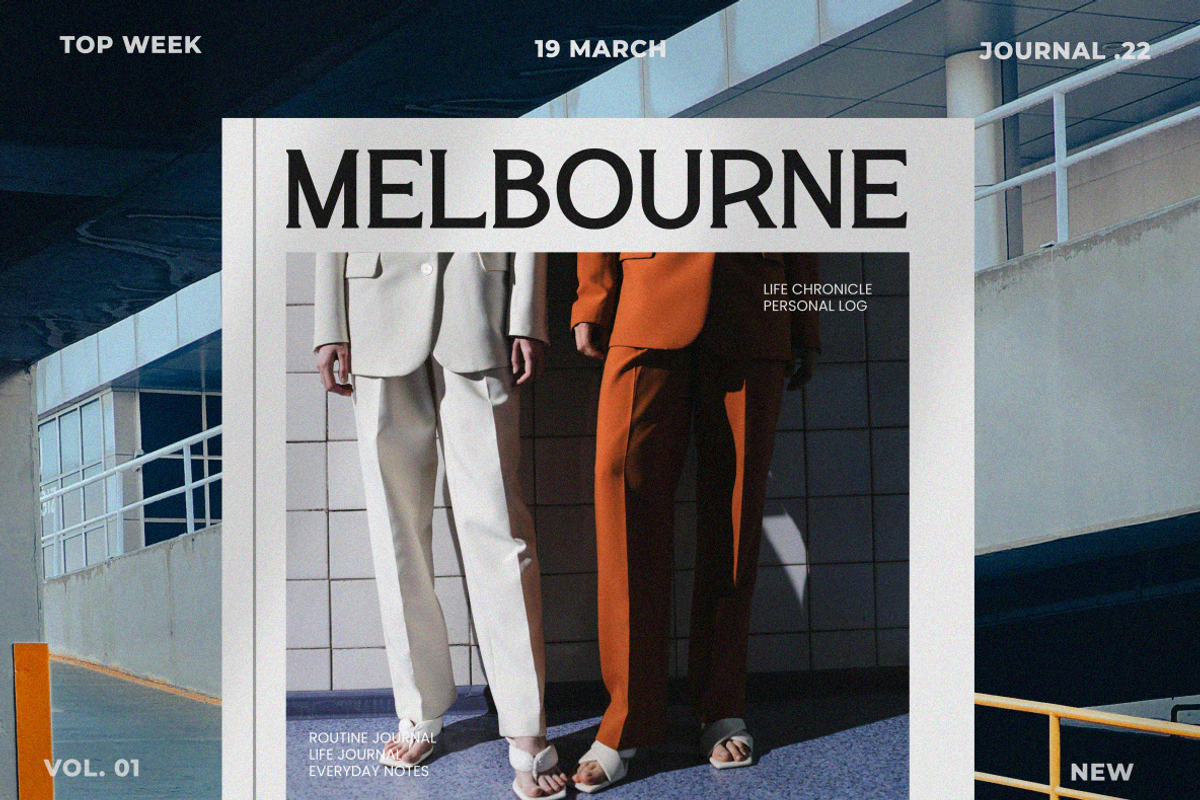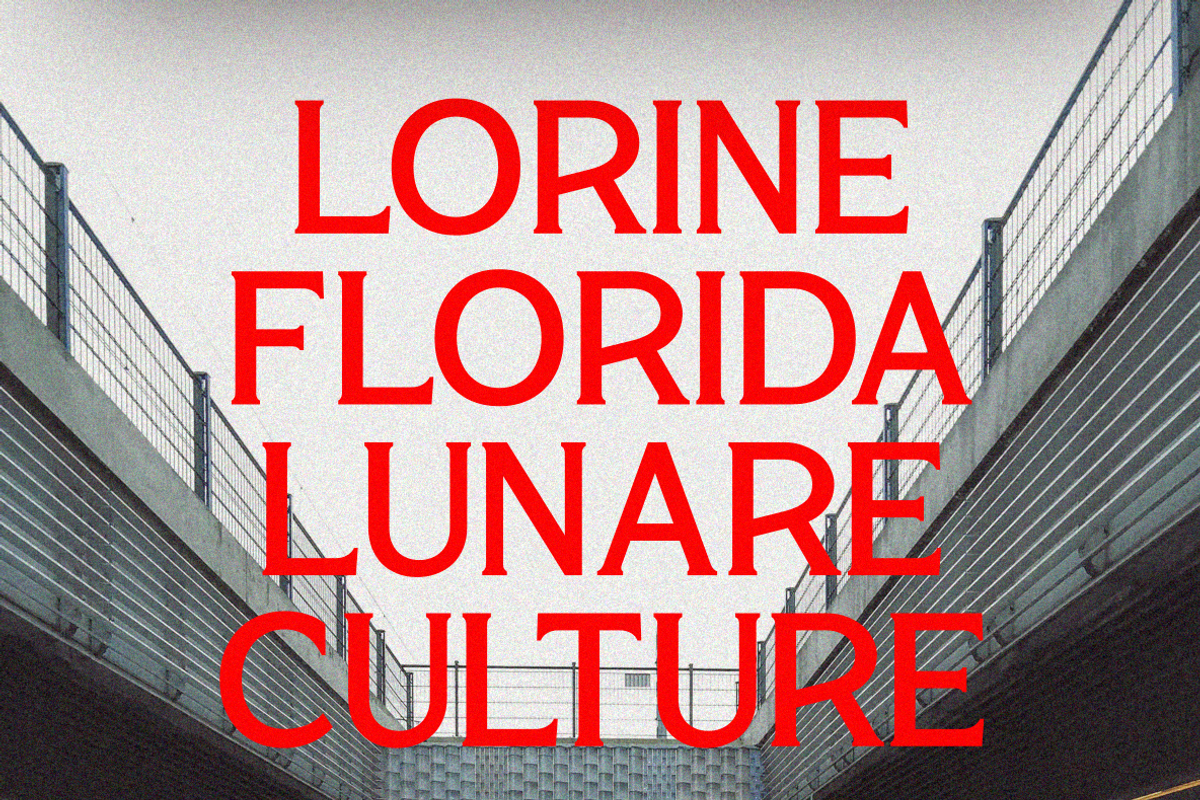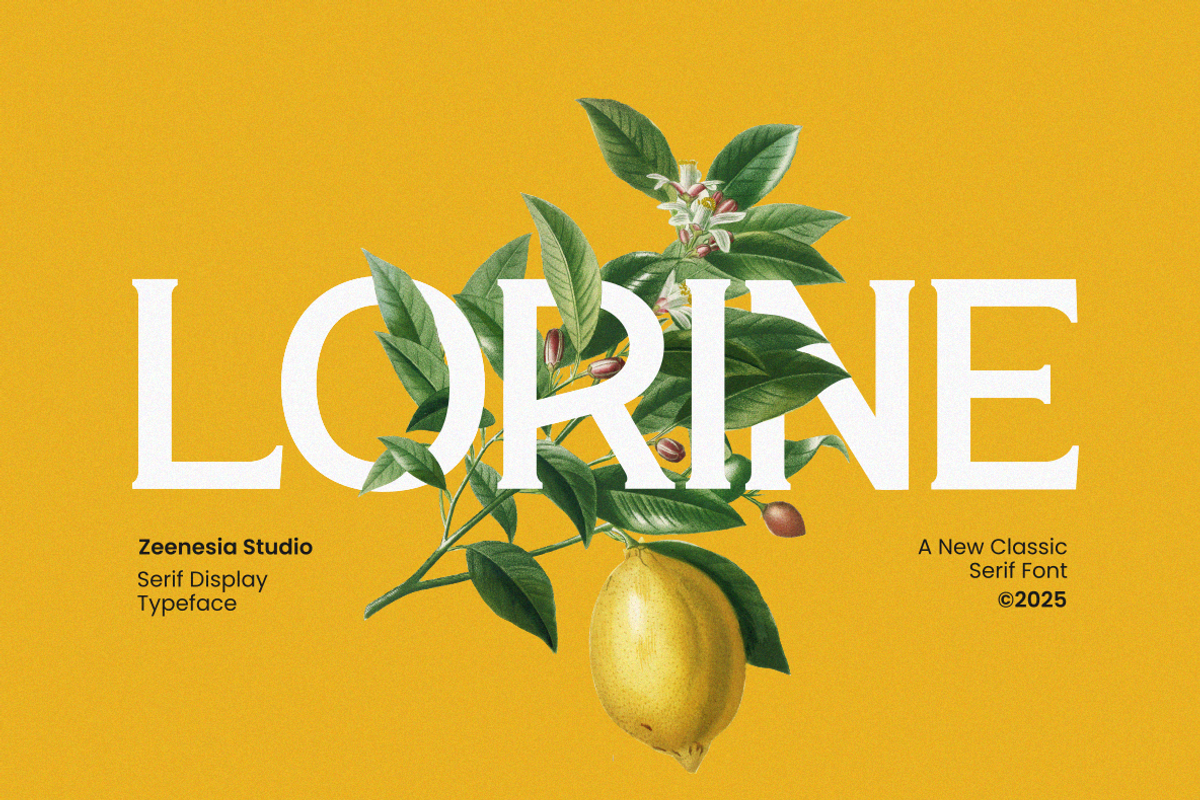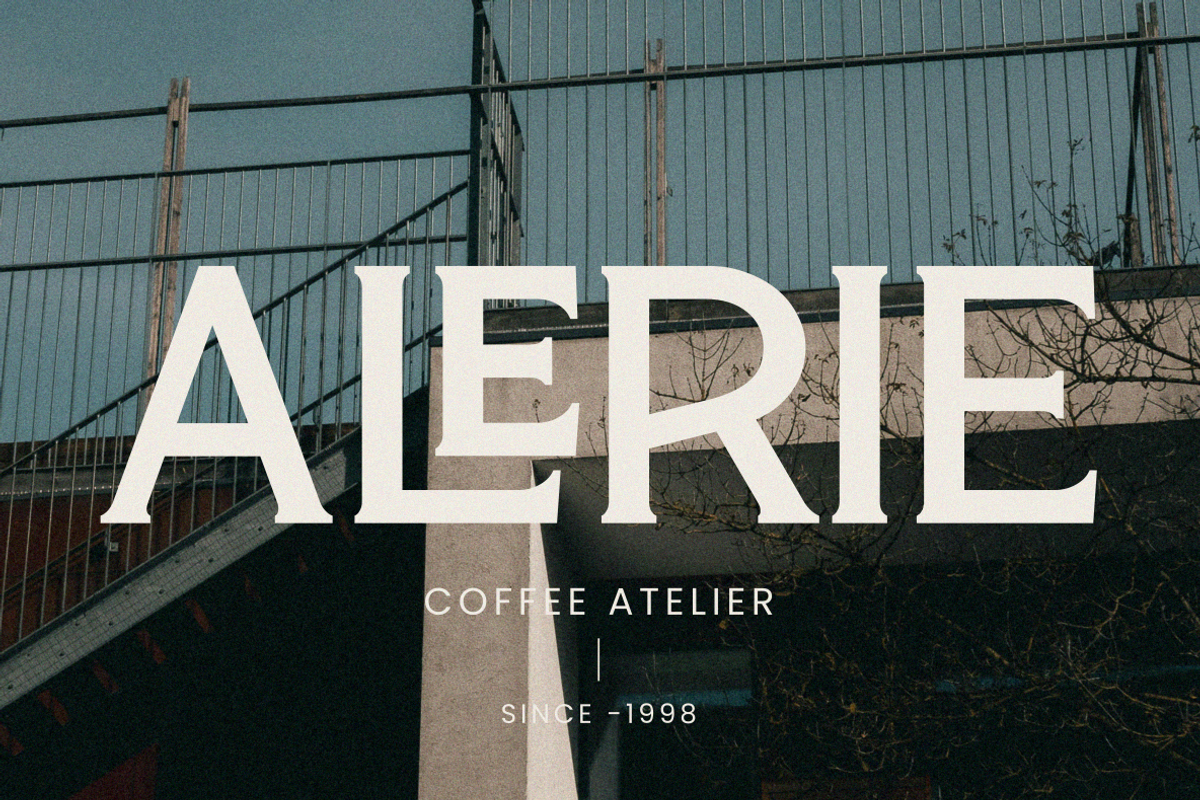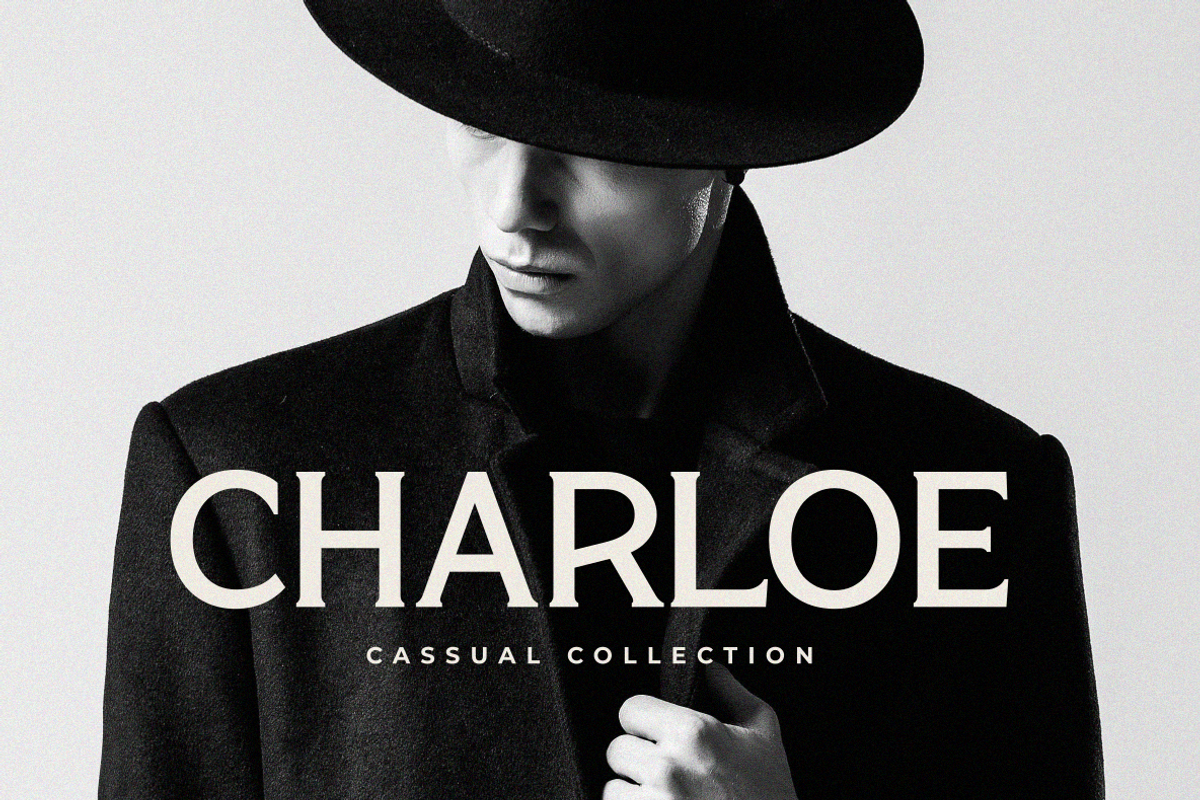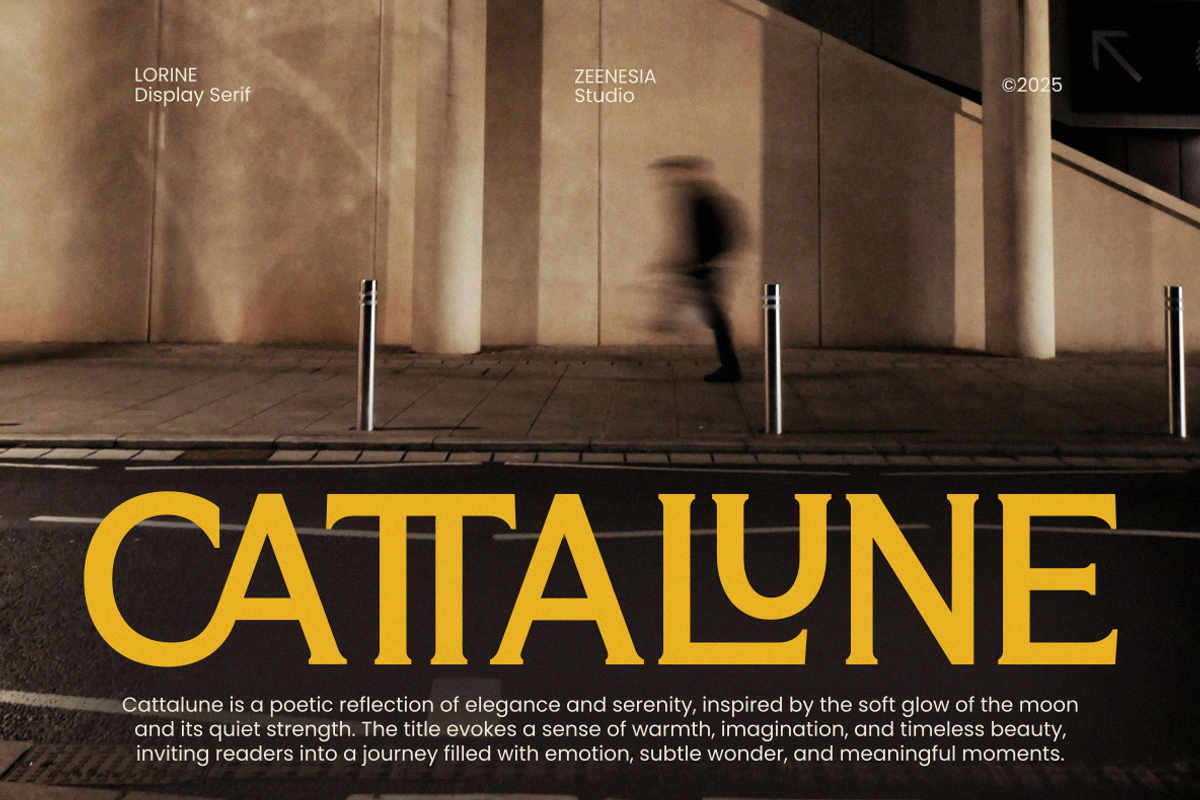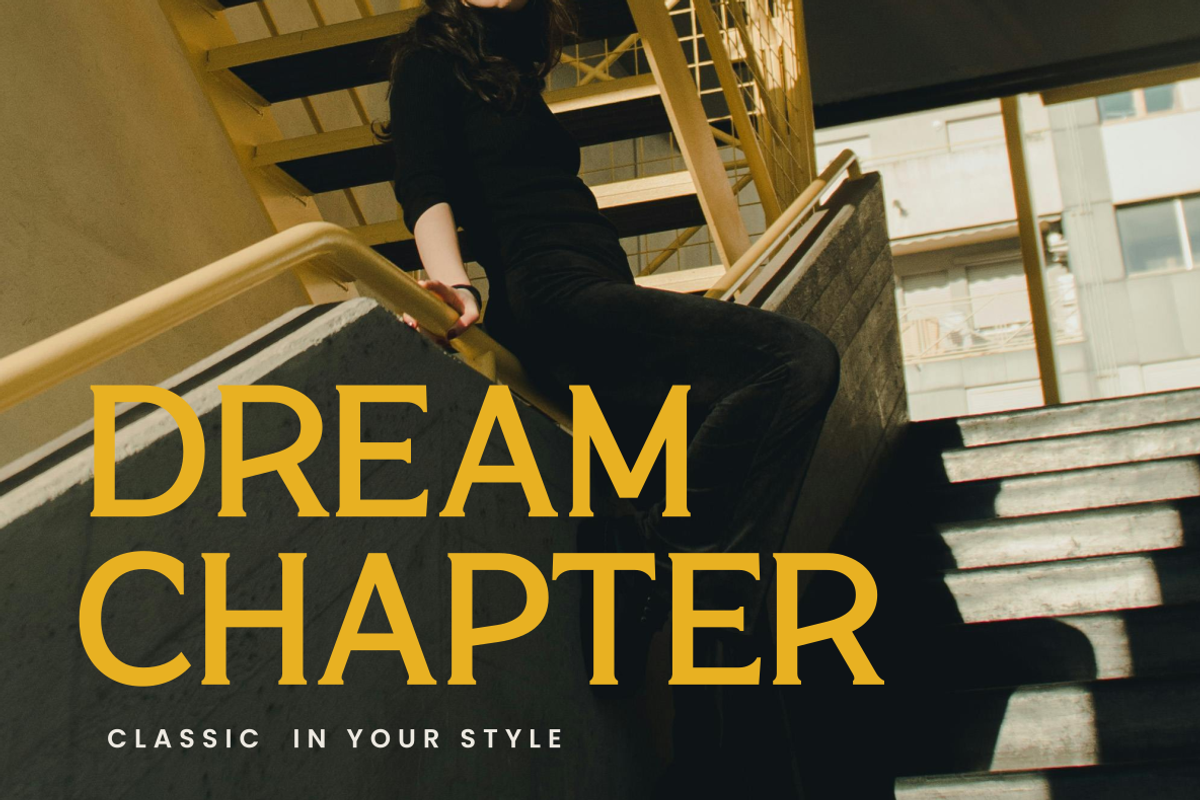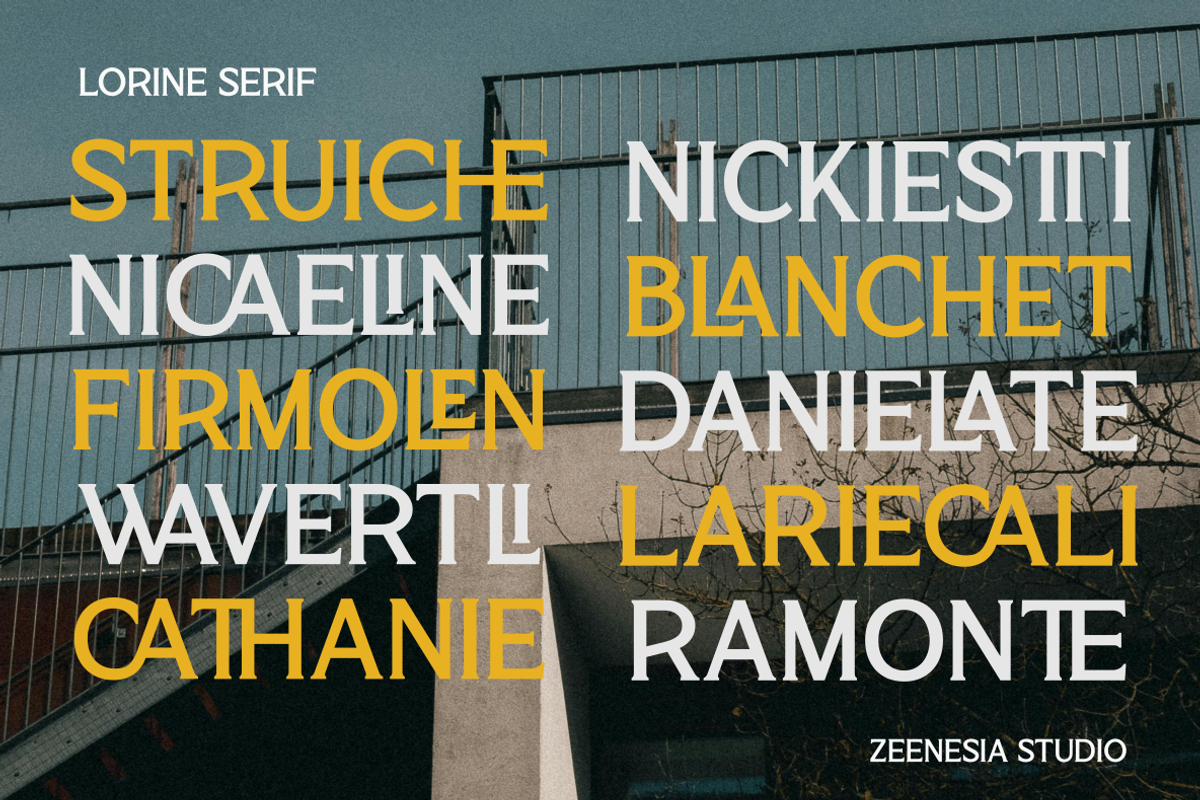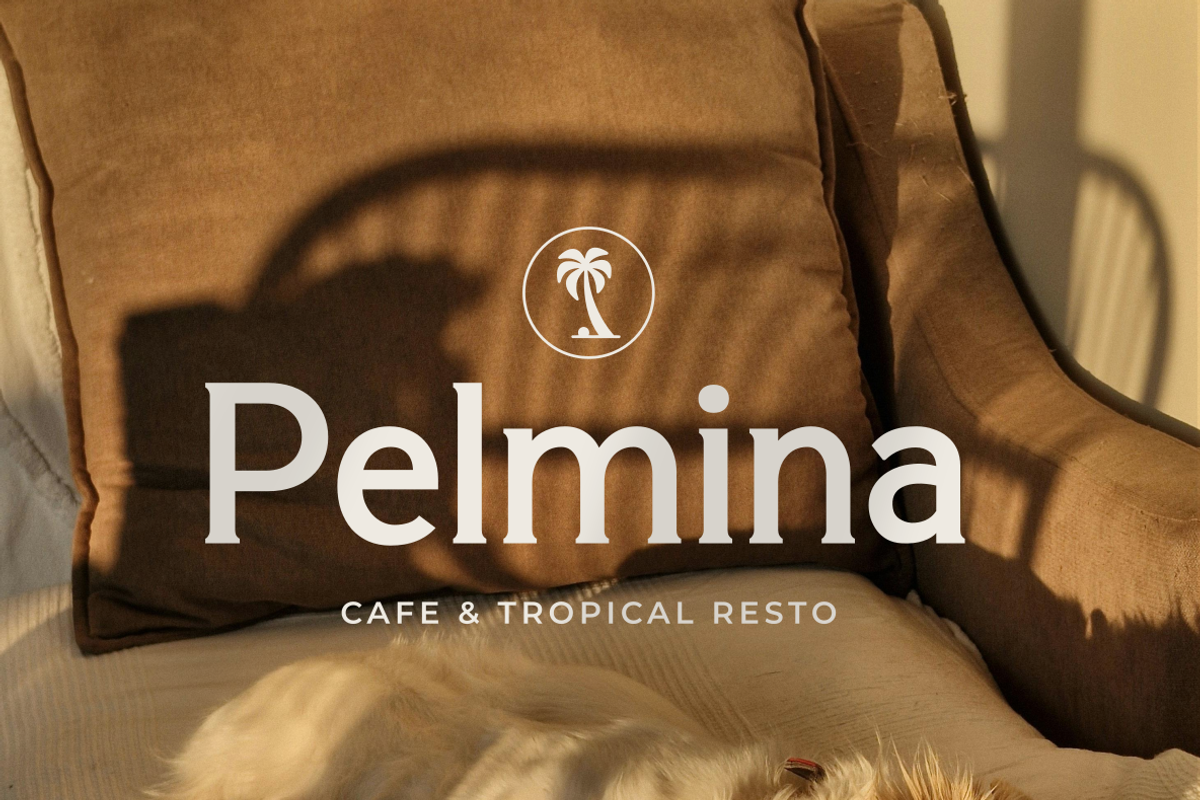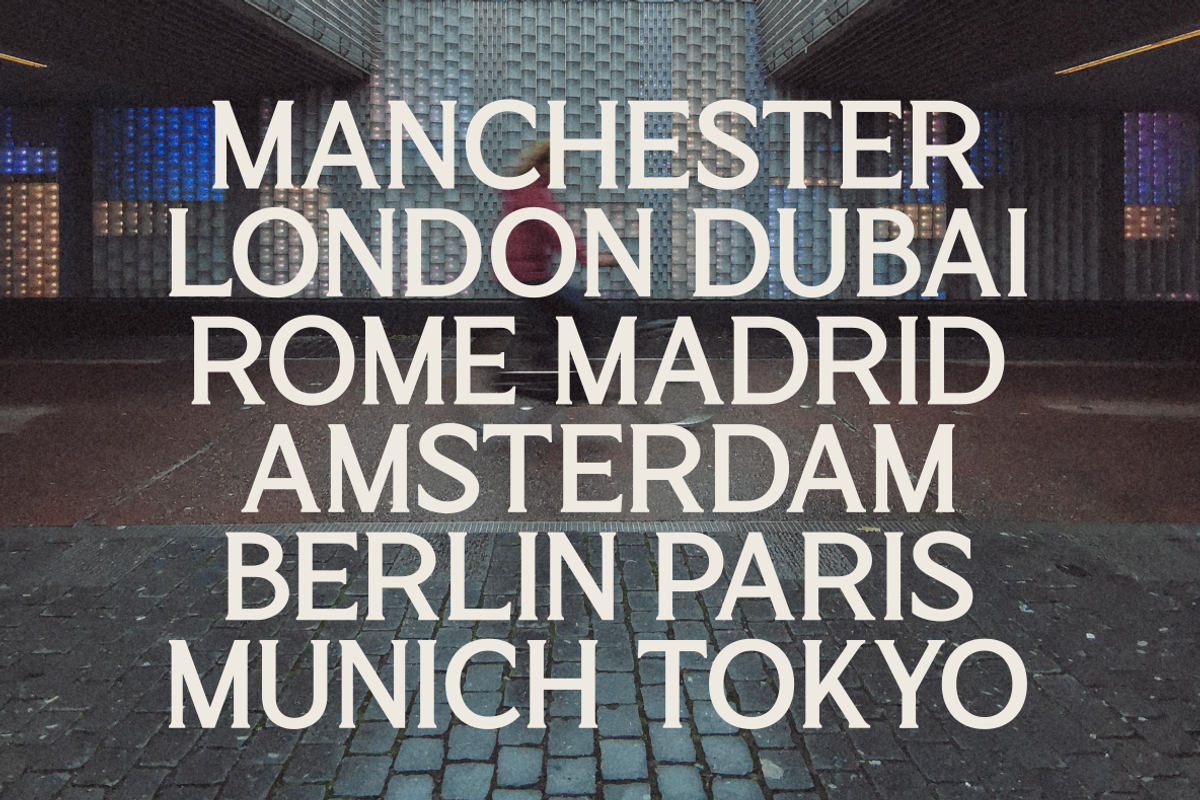
Lorine
Lorine is a refined classic serif display typeface that blends timeless elegance with a fresh contemporary feel. Designed with graceful proportions, sharp yet subtle serifs, and balanced contrast, Lorine delivers a sophisticated visual presence that feels both luxurious and approachable.
Inspired by classic editorial typography, Lorine is perfect for branding, fashion projects, magazines, book covers, packaging, and high-end visual identities. Its strong character and elegant details make headlines stand out while maintaining clarity and charm.
With its modern classic personality, Lorine brings warmth, confidence, and style to every design—making it an ideal choice for creatives who seek a serif font that feels timeless, expressive, and memorable.